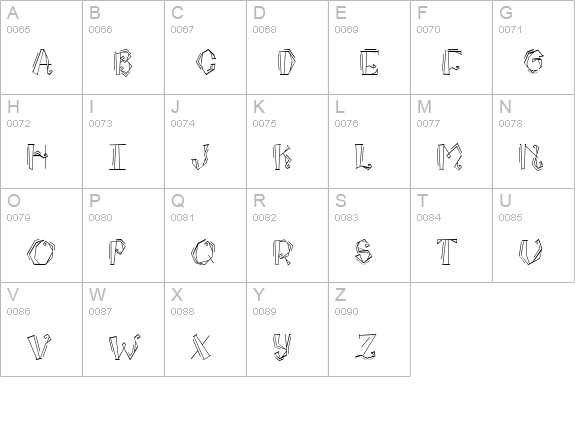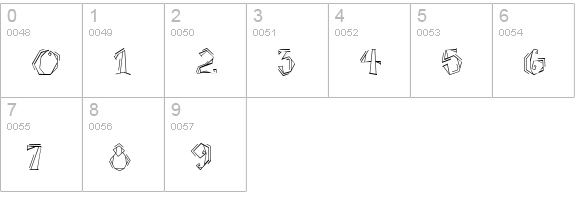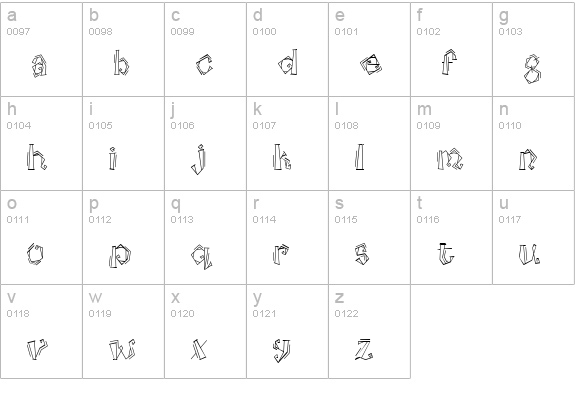
CK Fiesta Font Details
CK Fiesta is a fun and playful font that adds a touch of celebration to any design project. With its quirky and whimsical letterforms, this font is perfect for party invitations, greeting cards, and any other festive creations. The unique style of CK Fiesta will surely make your designs stand out and leave a lasting impression. Best of all, CK Fiesta is available for free download at FontsMarket.com. Embrace the joy and vibrancy of this delightful font without any cost, and let your creativity shine with CK Fiesta!